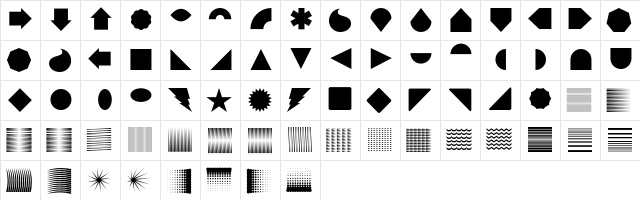
InstantLogo Regular
Design Context for InstantLogo Typeface
InstantLogo takes a measured approach to typography — its balanced proportions and neutral character make it a reliable workhorse for both digital and print work.